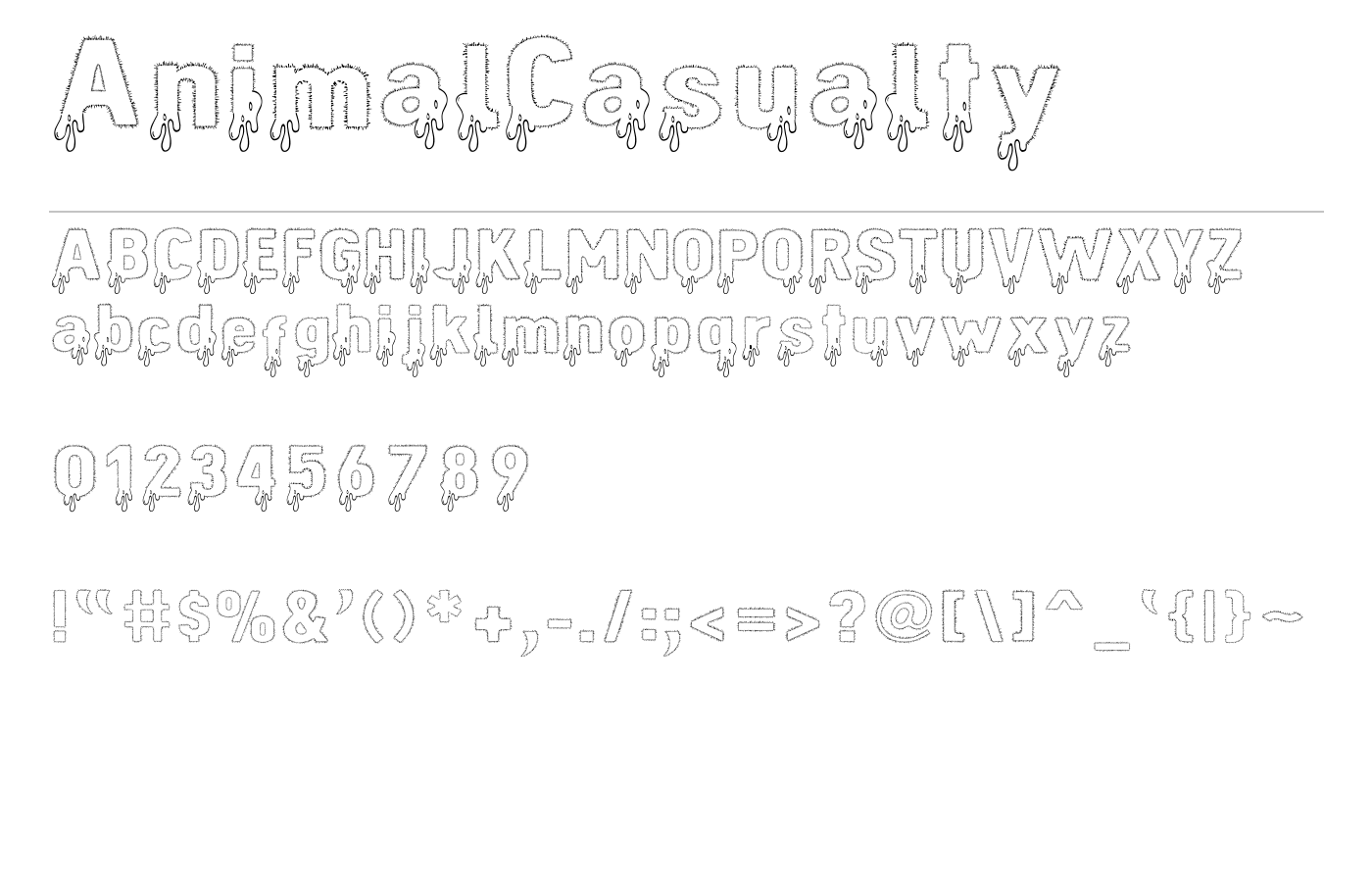
AnimalCasualty is a playful and bold sans serif font featuring a quirky, melting effect that adds a sense of movement and character. Its slightly condensed uppercase and lowercase letters have a fun, irregular outline with dripping details, making it perfect for creative projects that need a unique, eye-catching look. This font works well in posters, logos, and designs that want to convey a whimsical, edgy, or spooky vibe.
AnimalCasualty Font
About AnimalCasualty Font
| Font family | AnimalCasualty Font |
| Designer | Stacey Thatcher And Cameron Climpson |